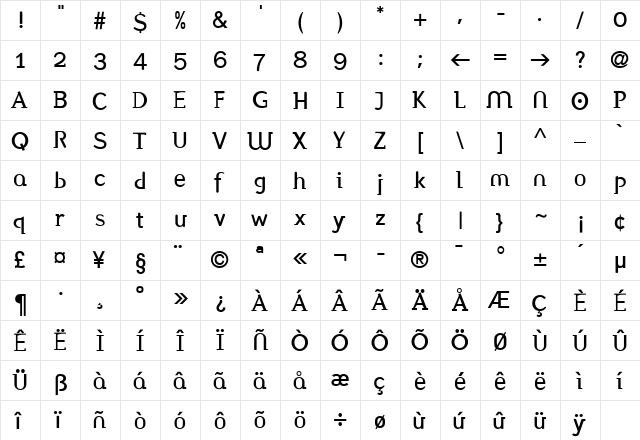
F2FStylettiMedium LT Std Regular
| Foundry | Linotype Library GmbH |
| Designer | Sibylle Schlaich |
Design Context for F2FStylettiMedium LT Std Typeface
F2FStylettiMedium LT Std offers clean, dependable letterforms without strong stylistic allegiance, making it a practical choice for designers who need flexibility. The delicate stroke weight brings airiness and refinement to layouts.